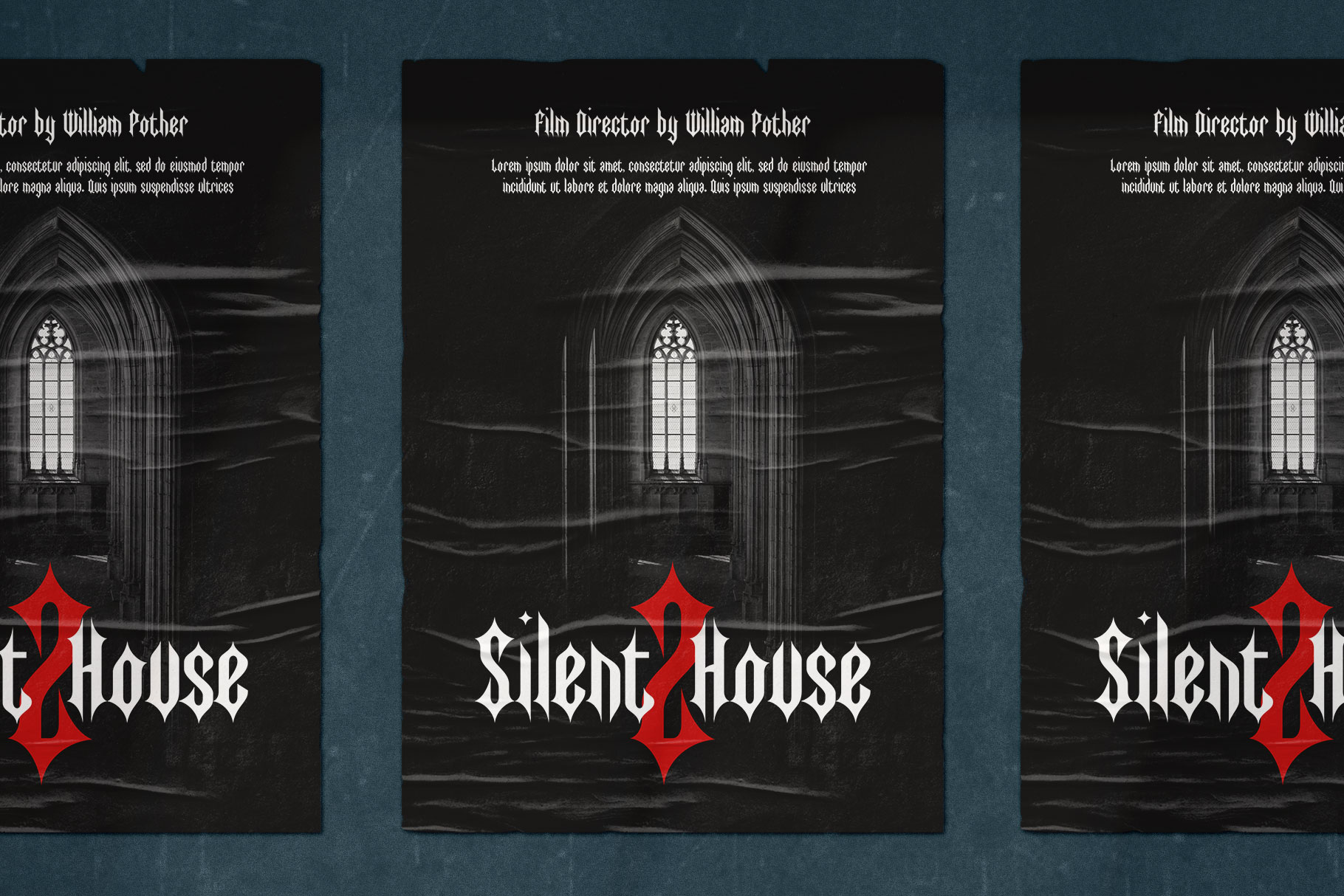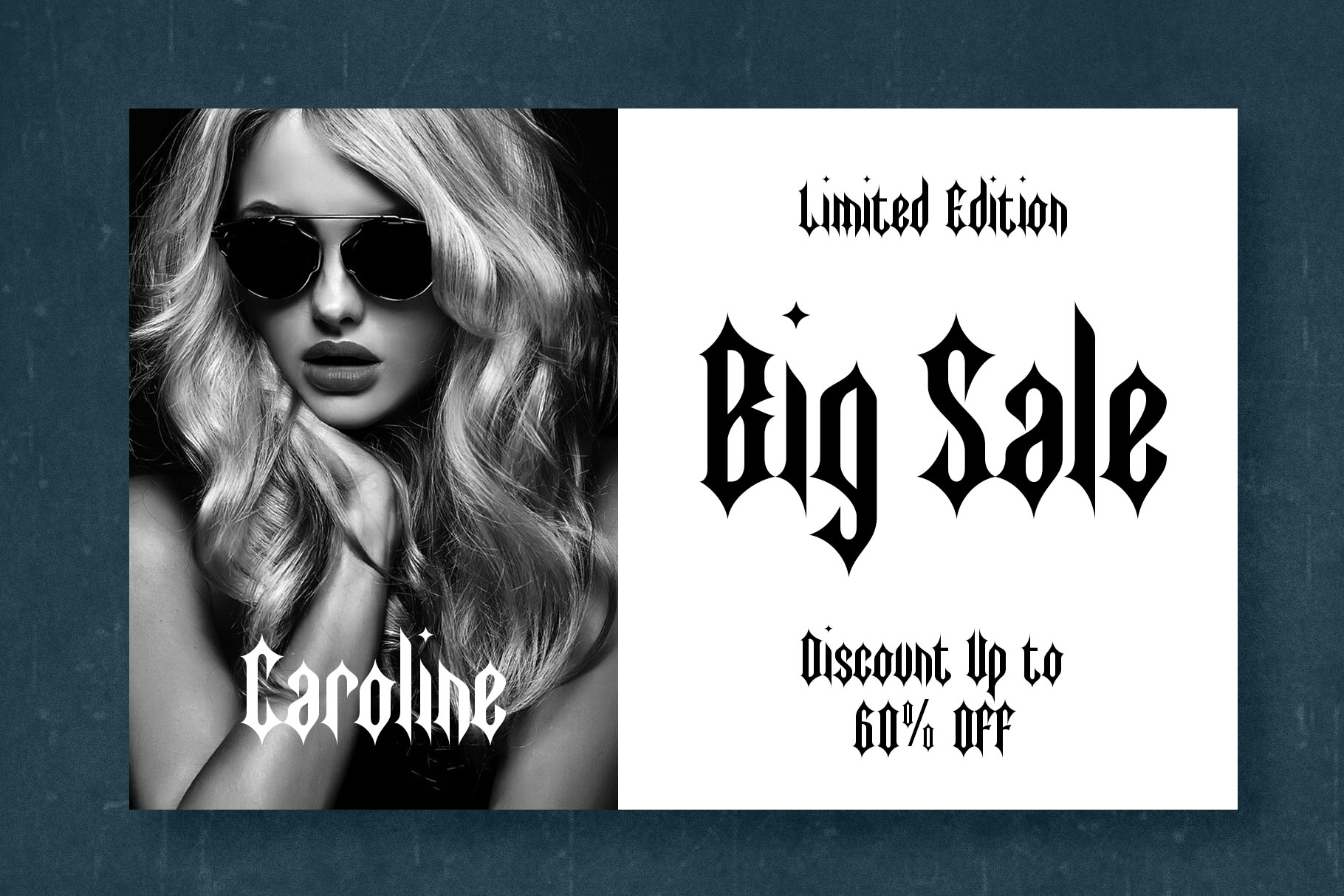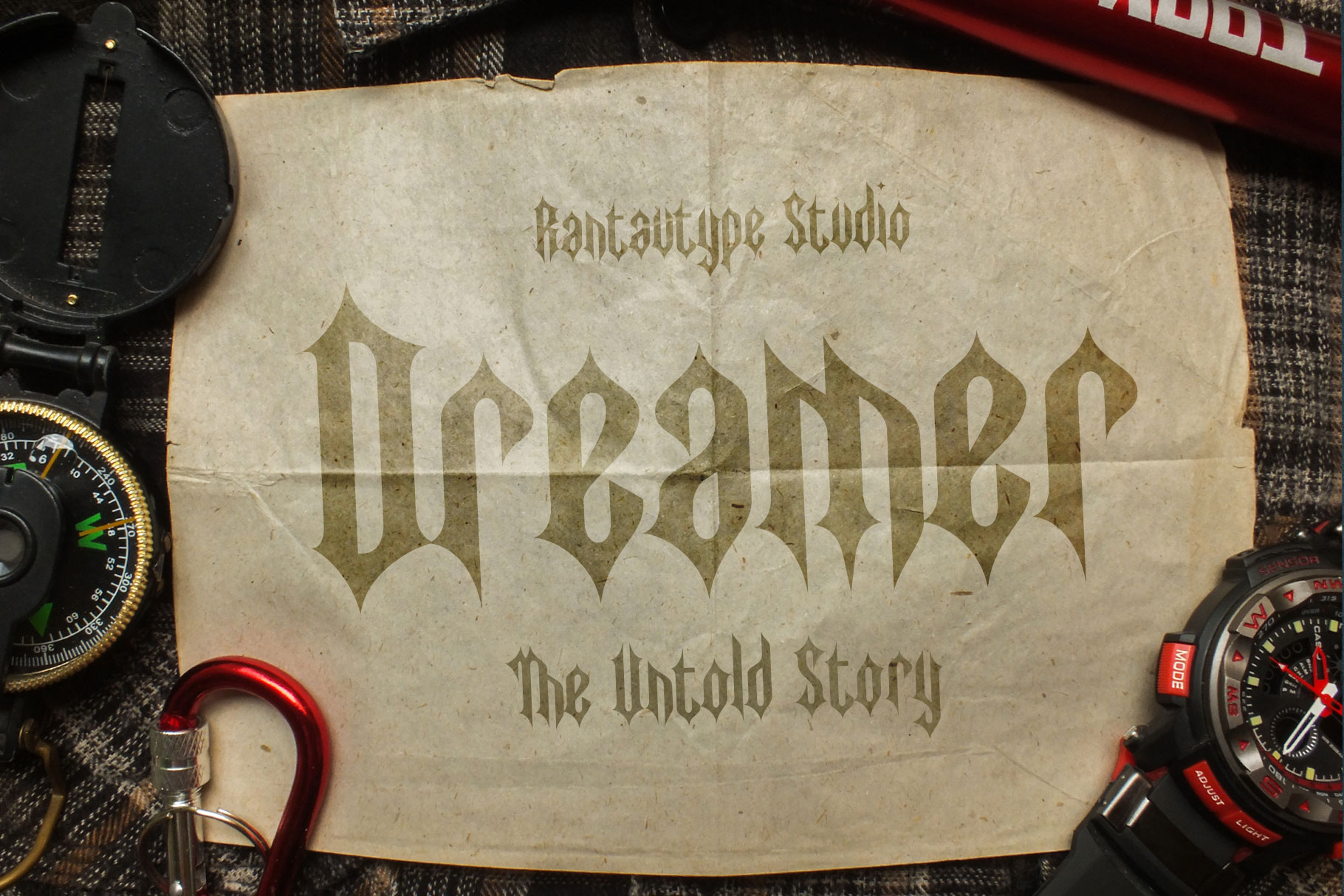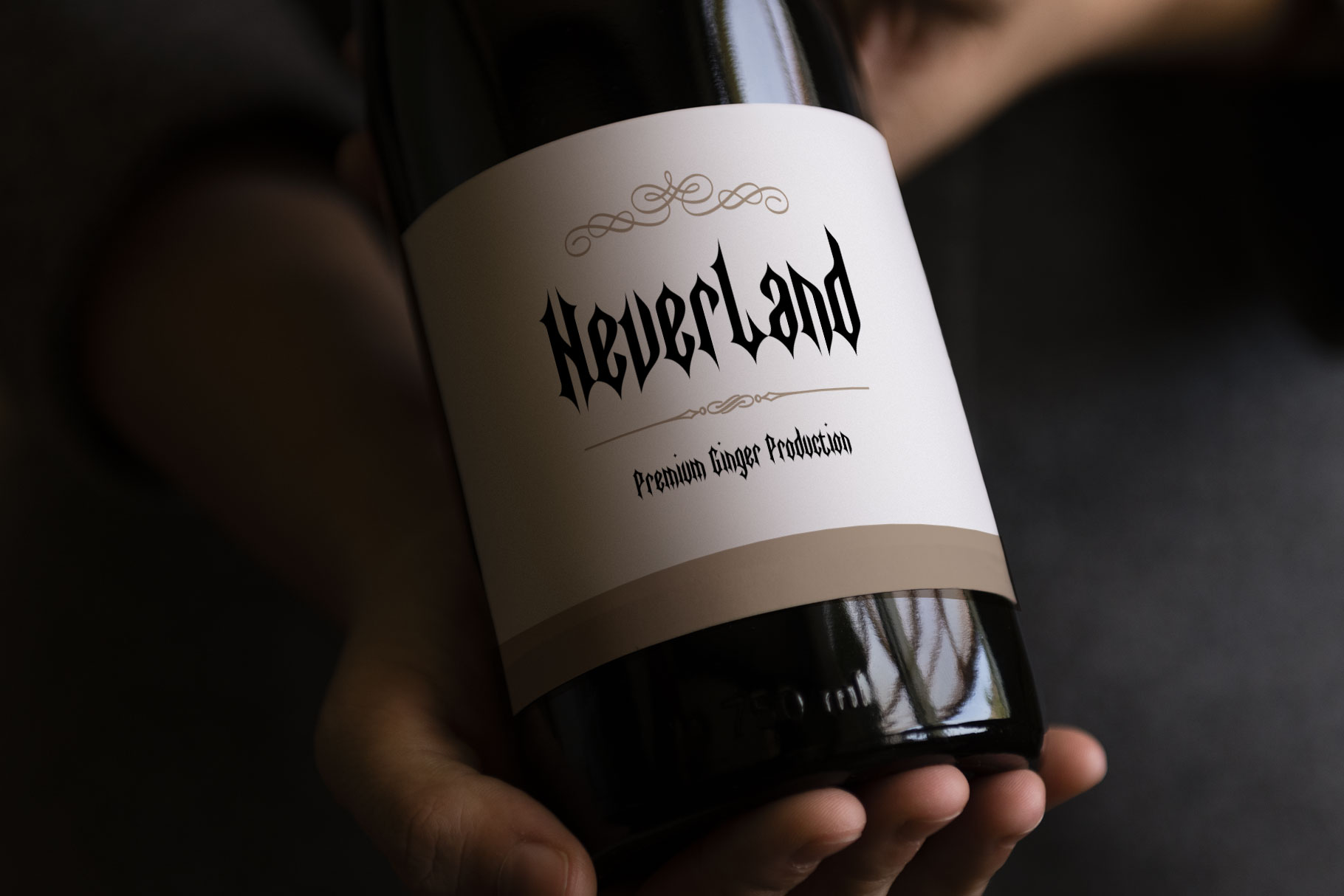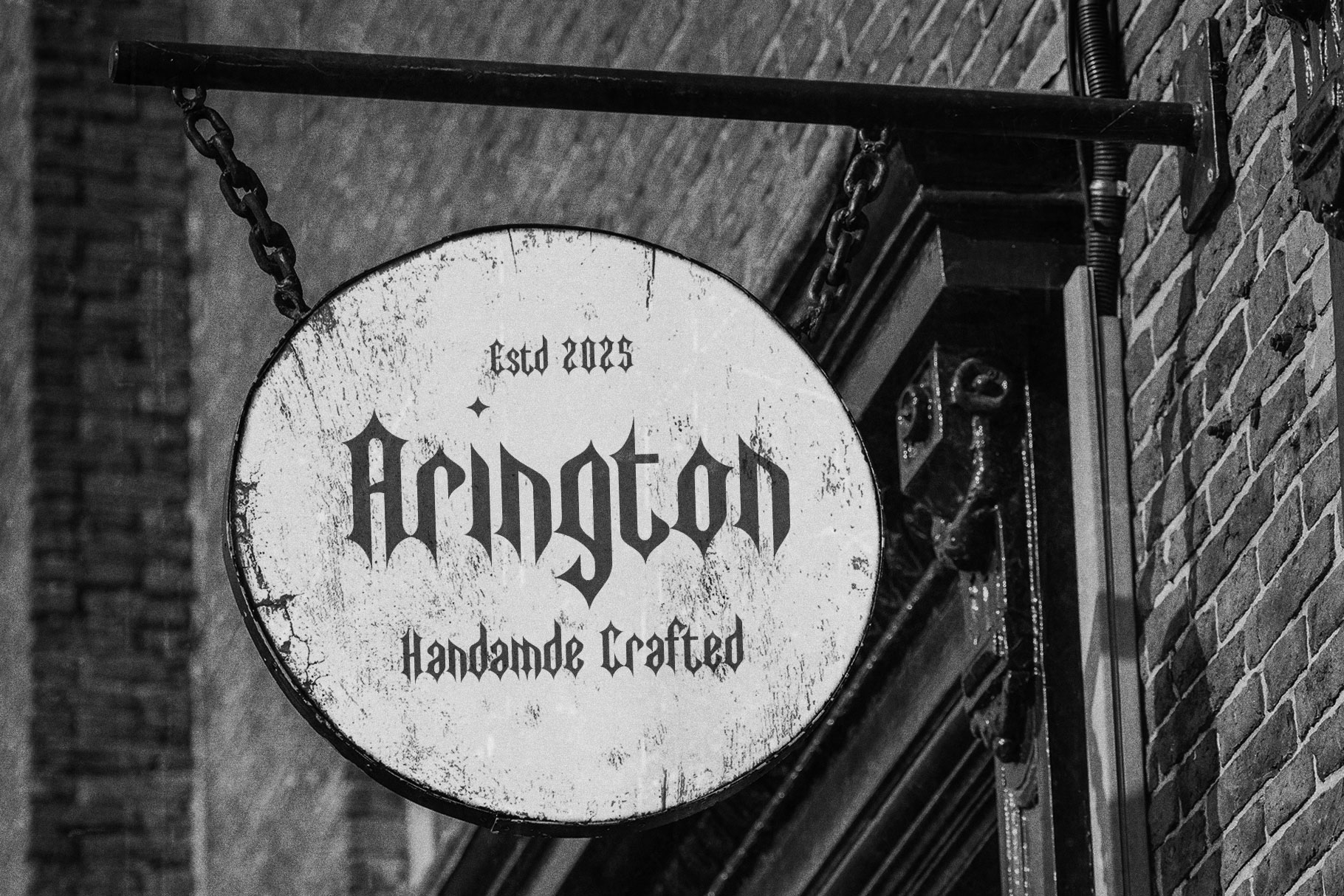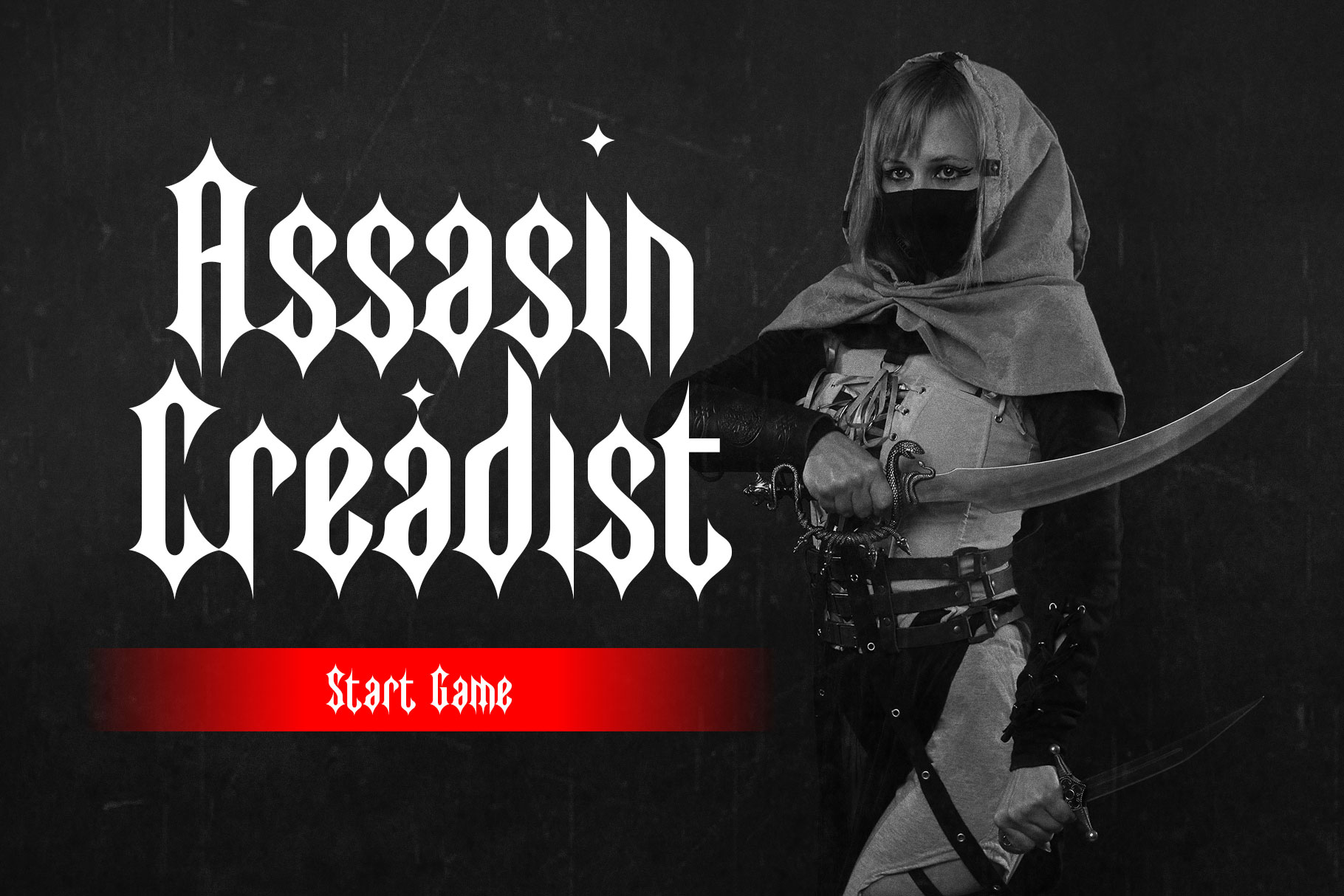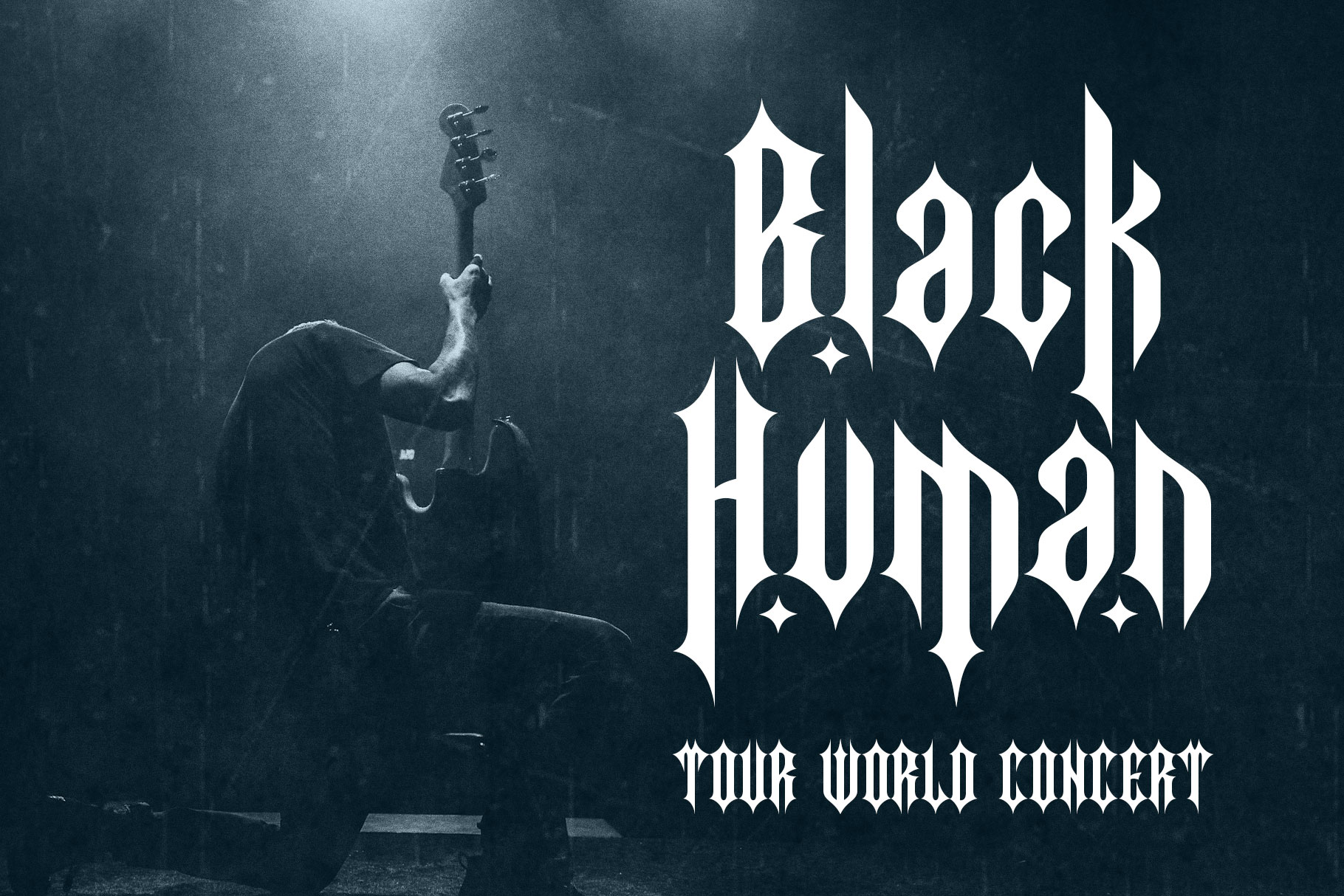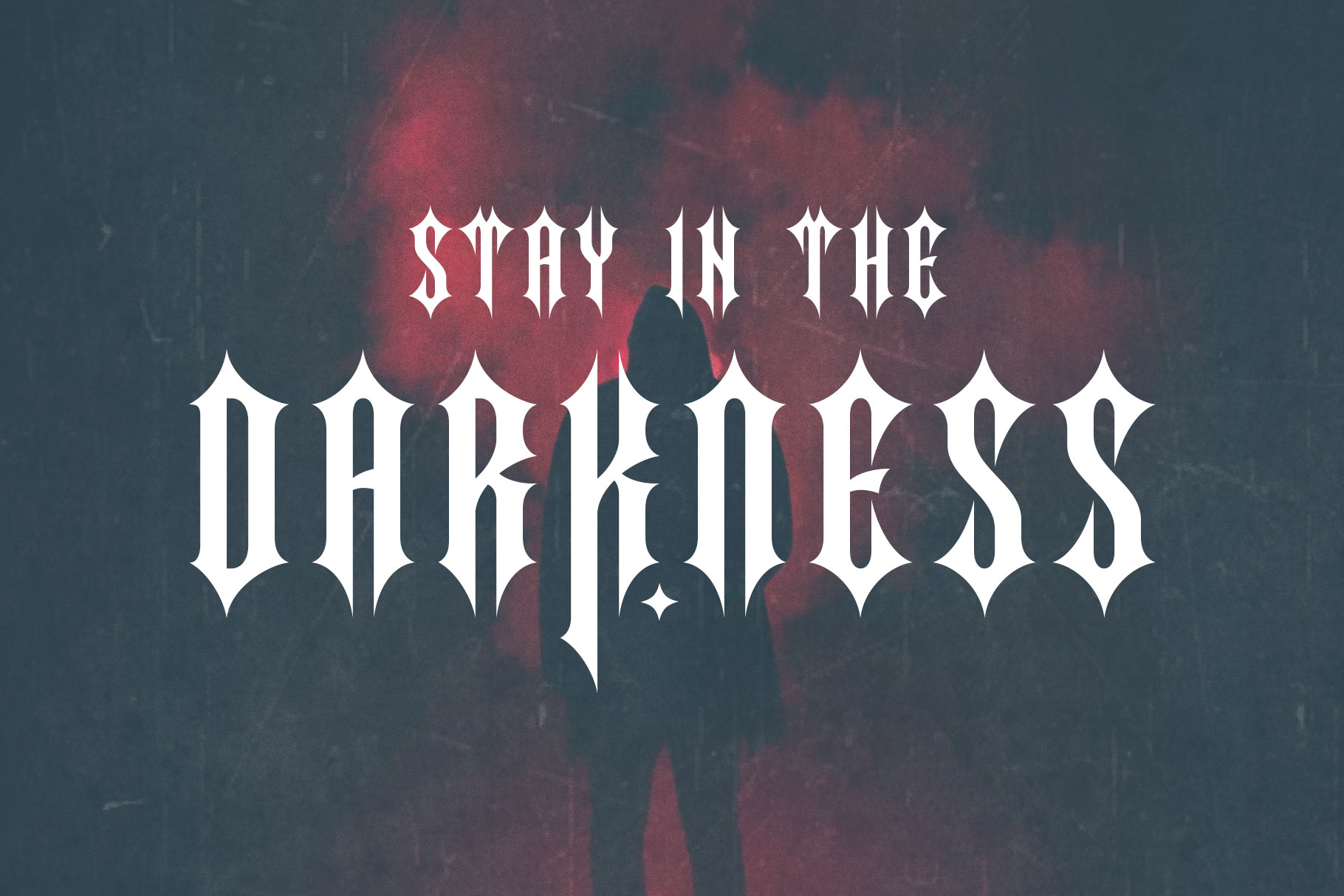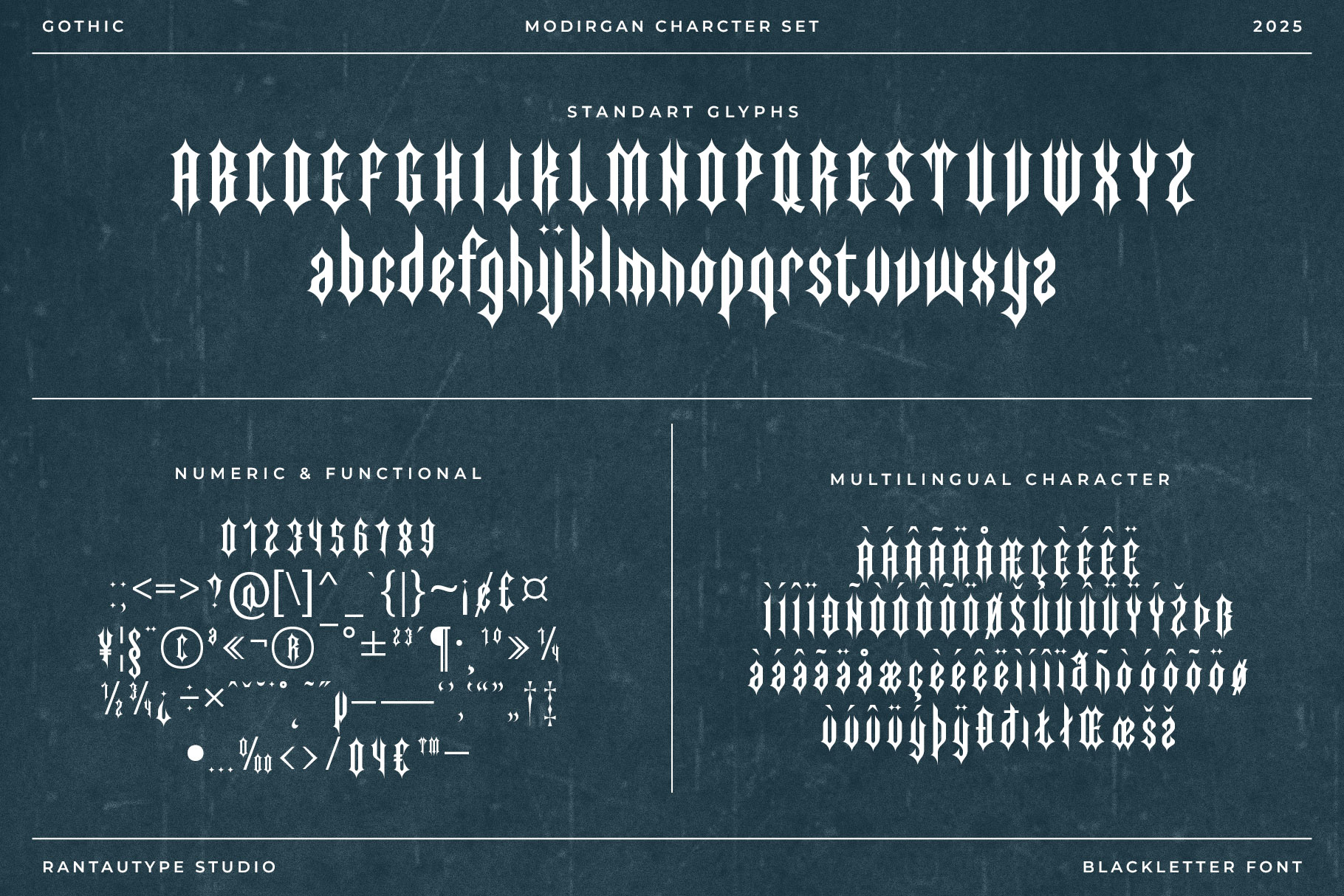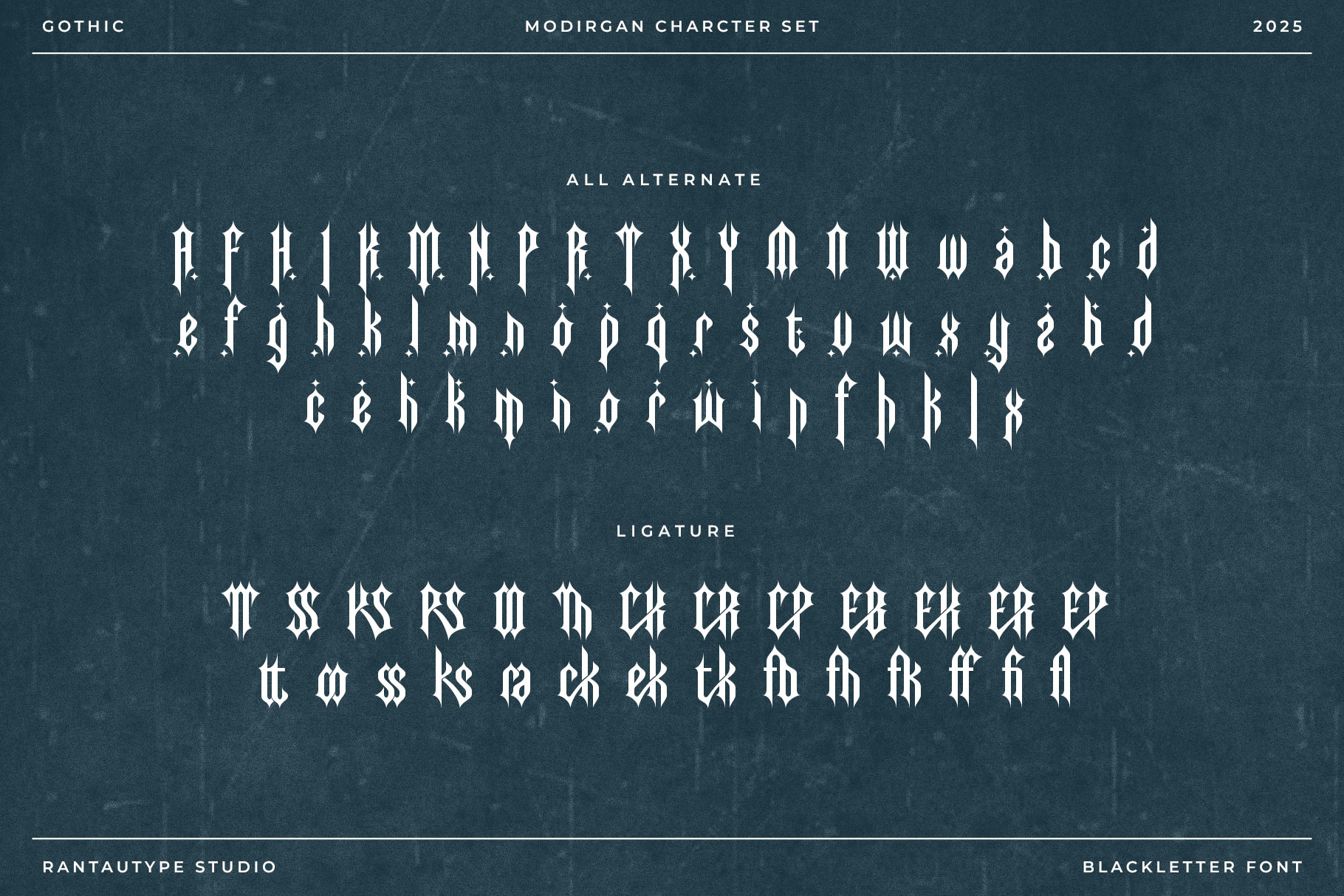
Modirgan Gothic Display Font
Modirgan is gothic font with metal and victorian style. Modirgan bring sophisticated of gothic font into horror, dark and fantasy visual design. Modirgan is a perfectly choice for any creative endeavor, chic, lifestyle design such as logotype, advertisements, watermark on photography, stationery, branding project, display and magazine, game design, invitation, corporate brand, product design, label, business project and other project with gothic/fantasy taste.